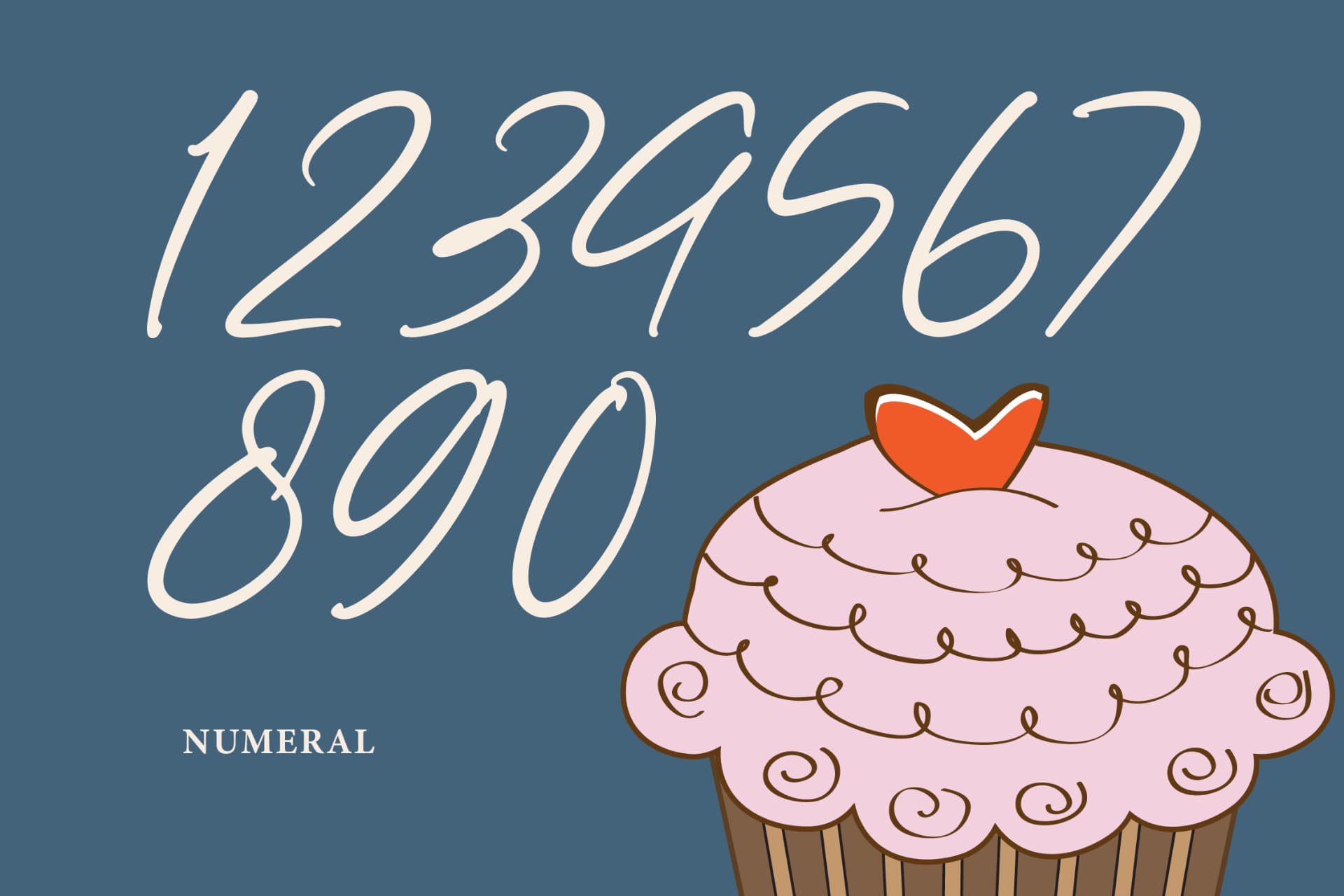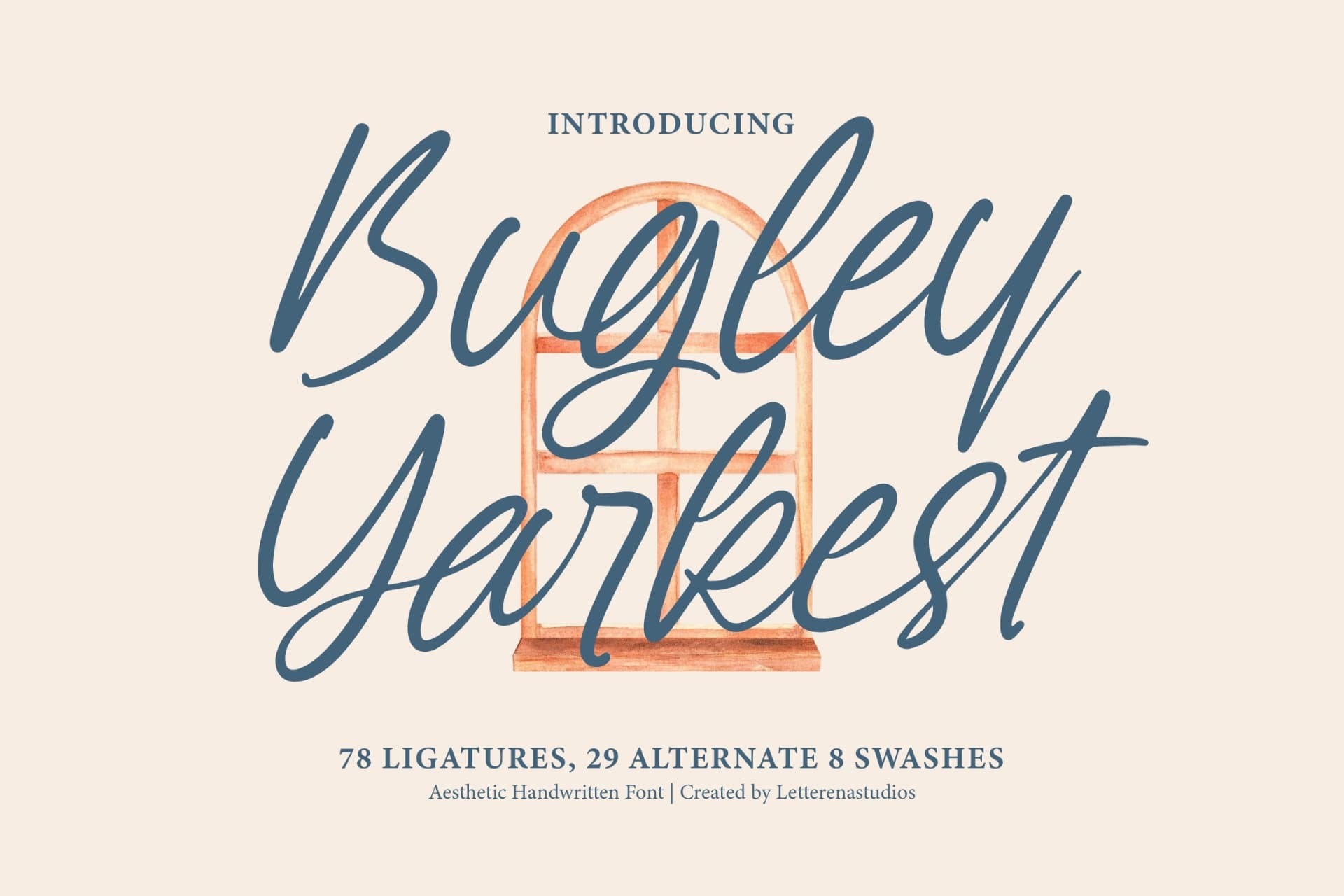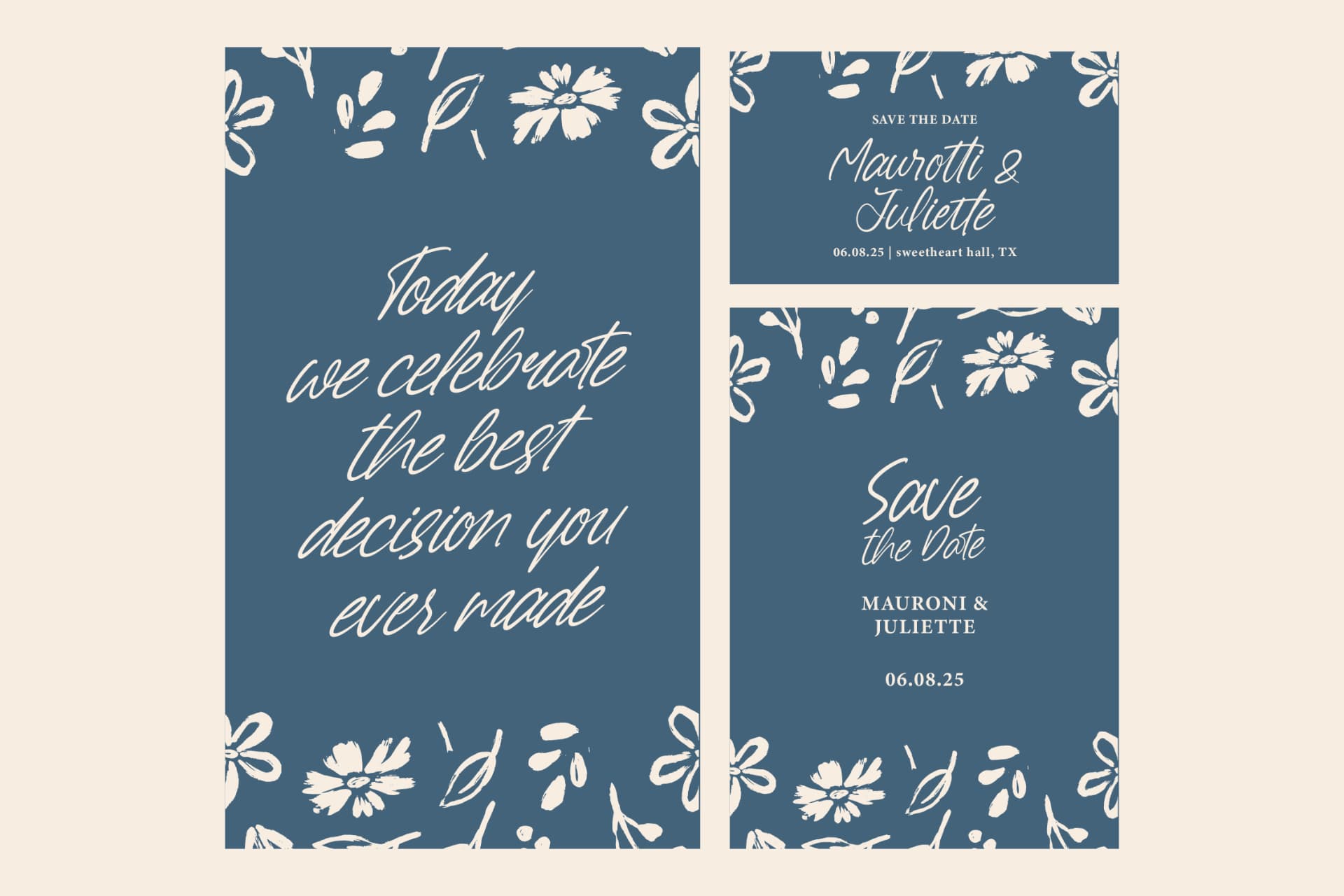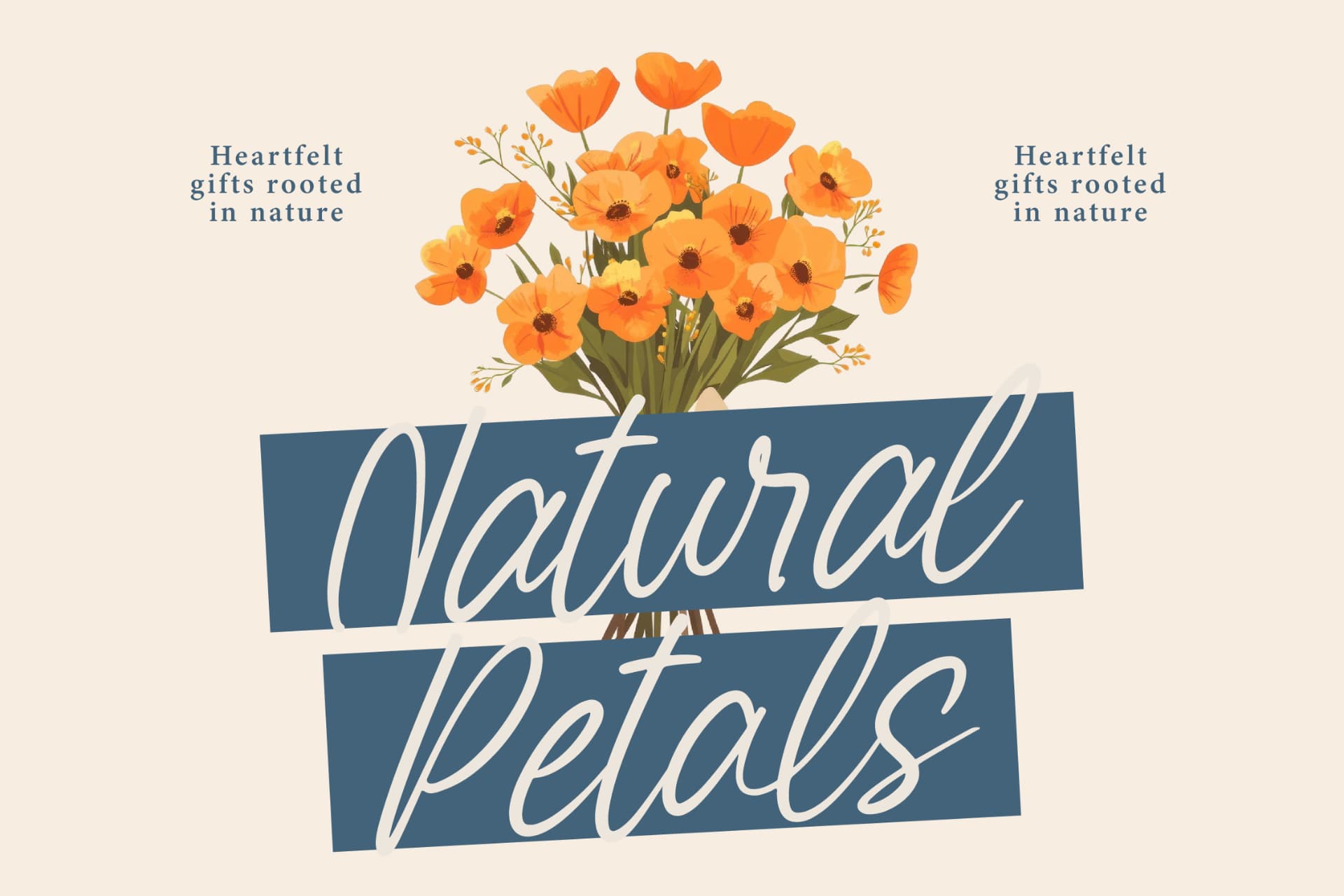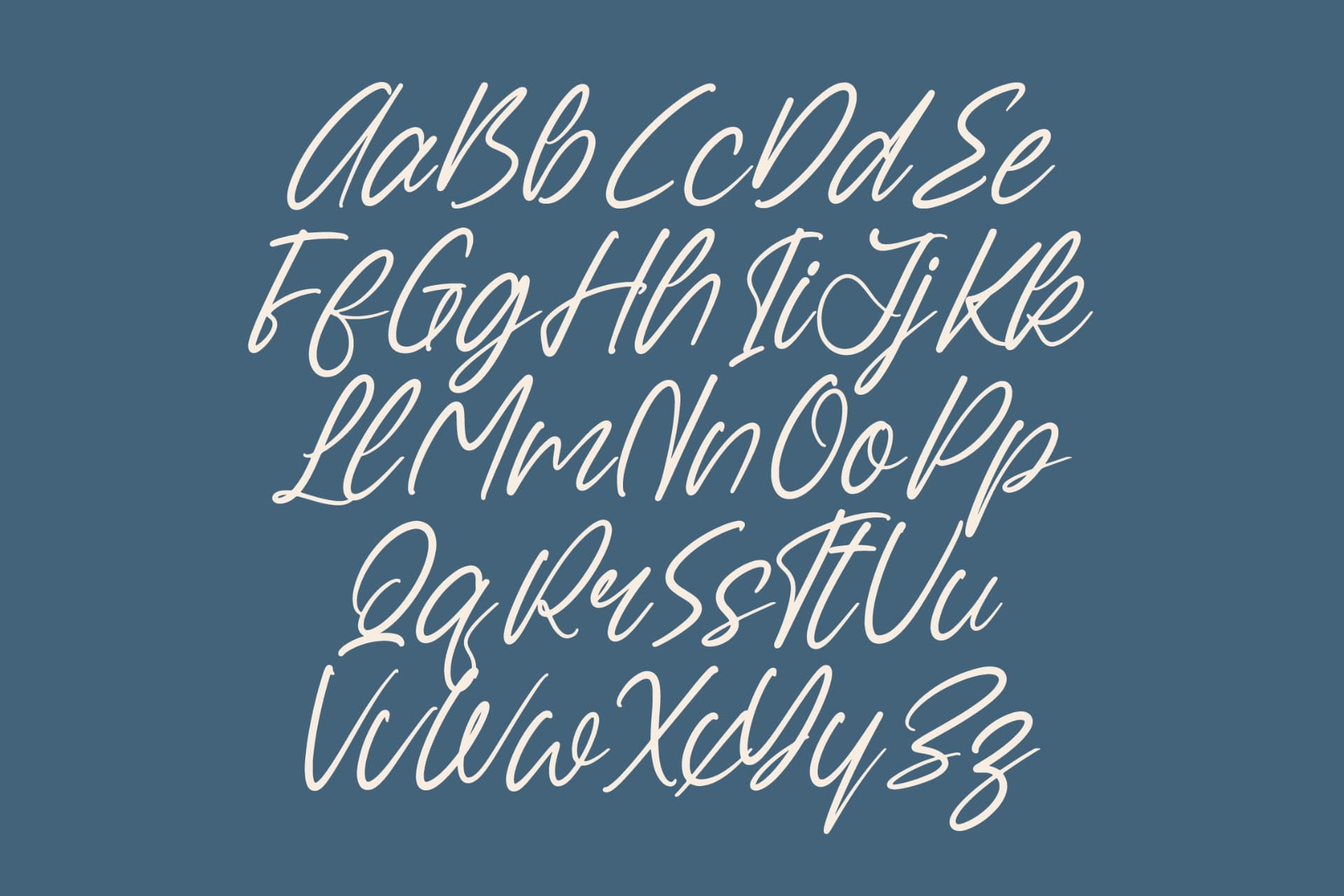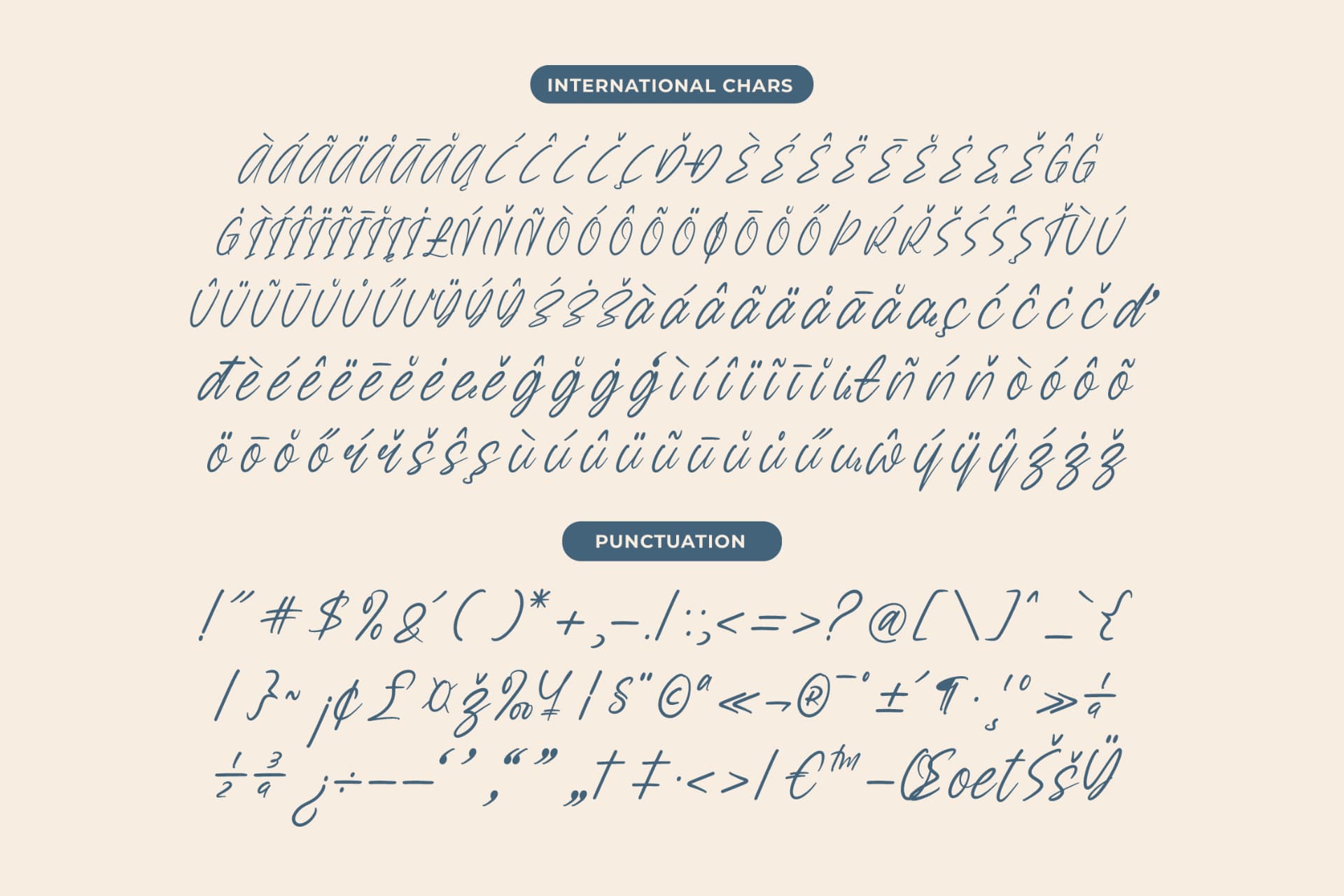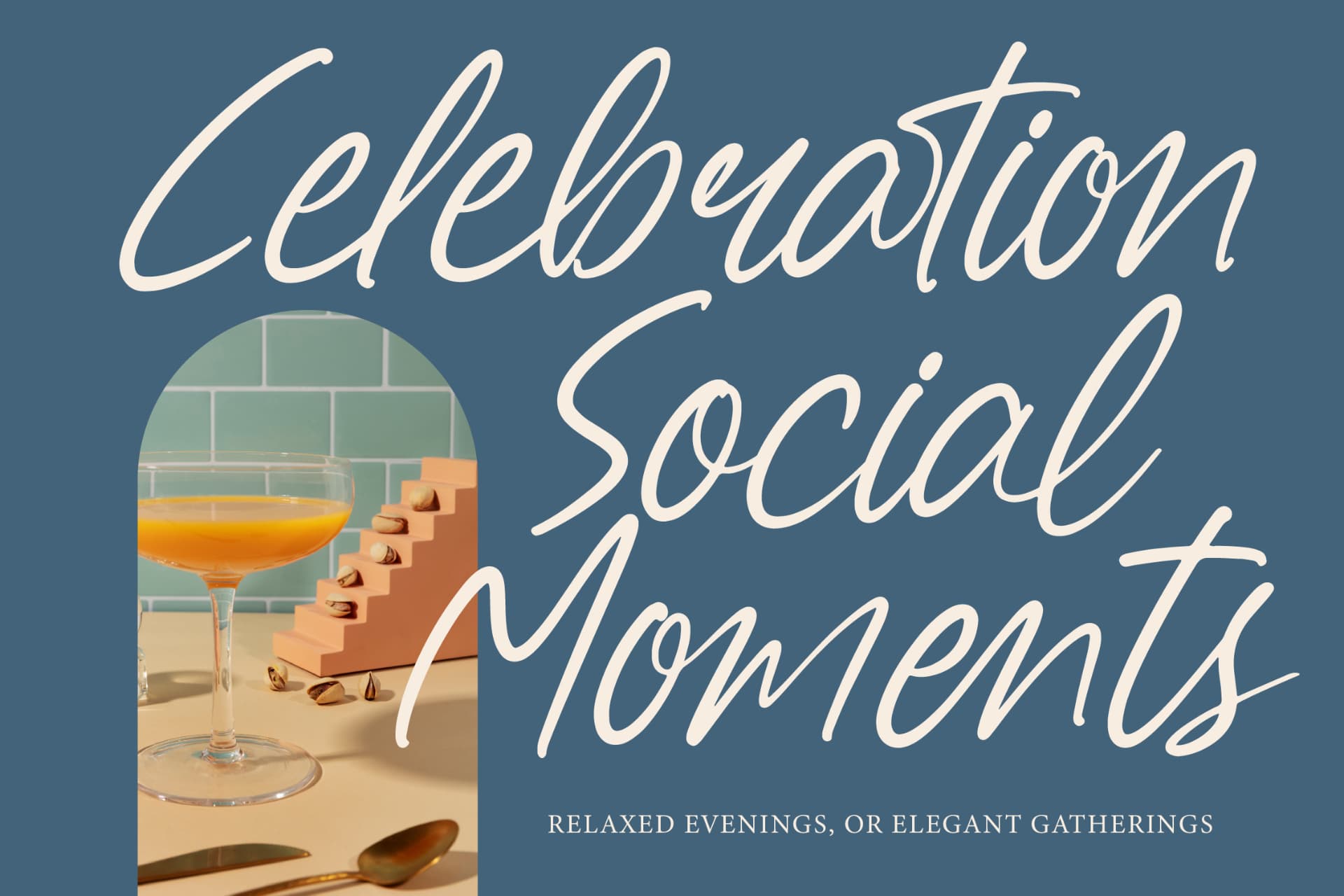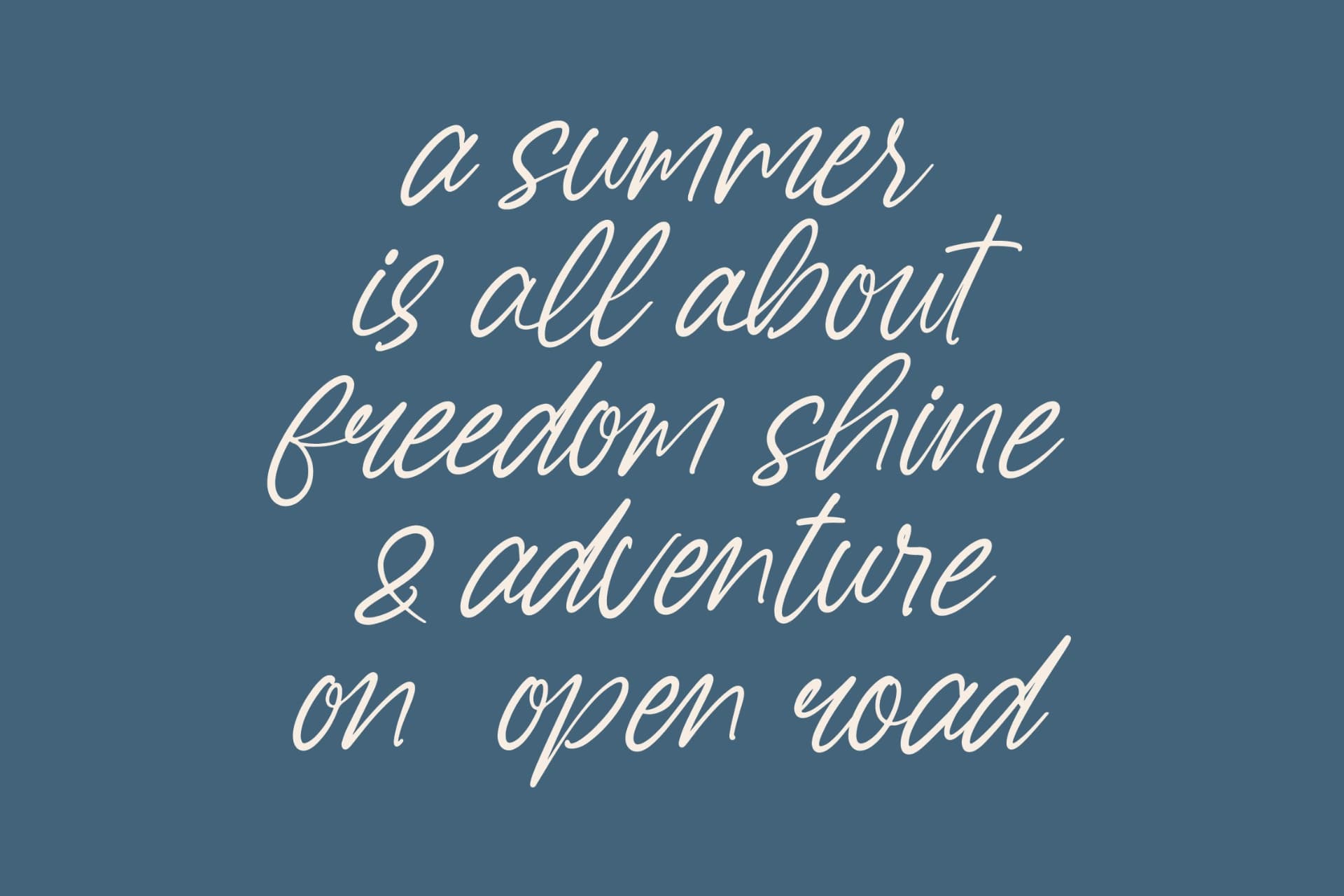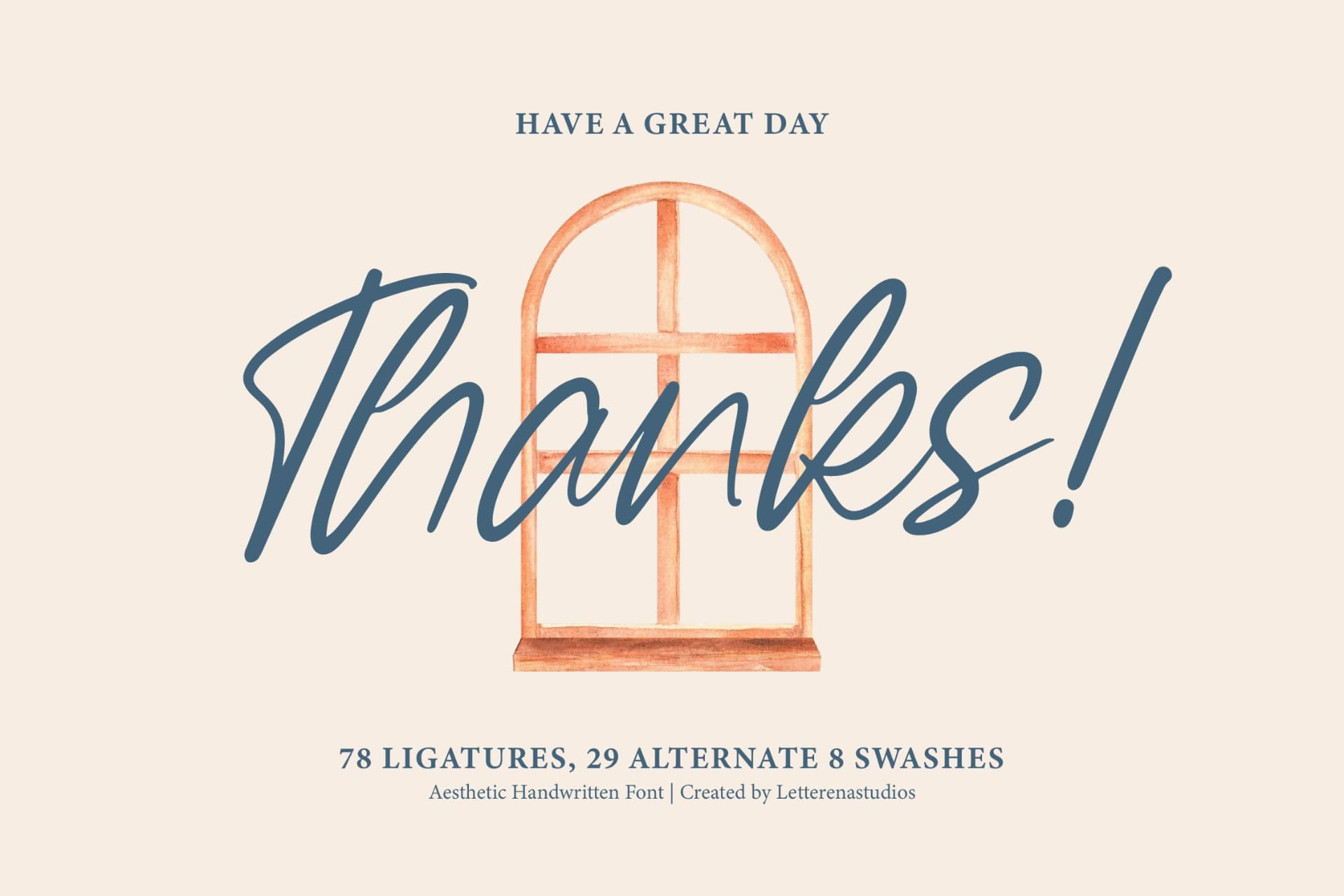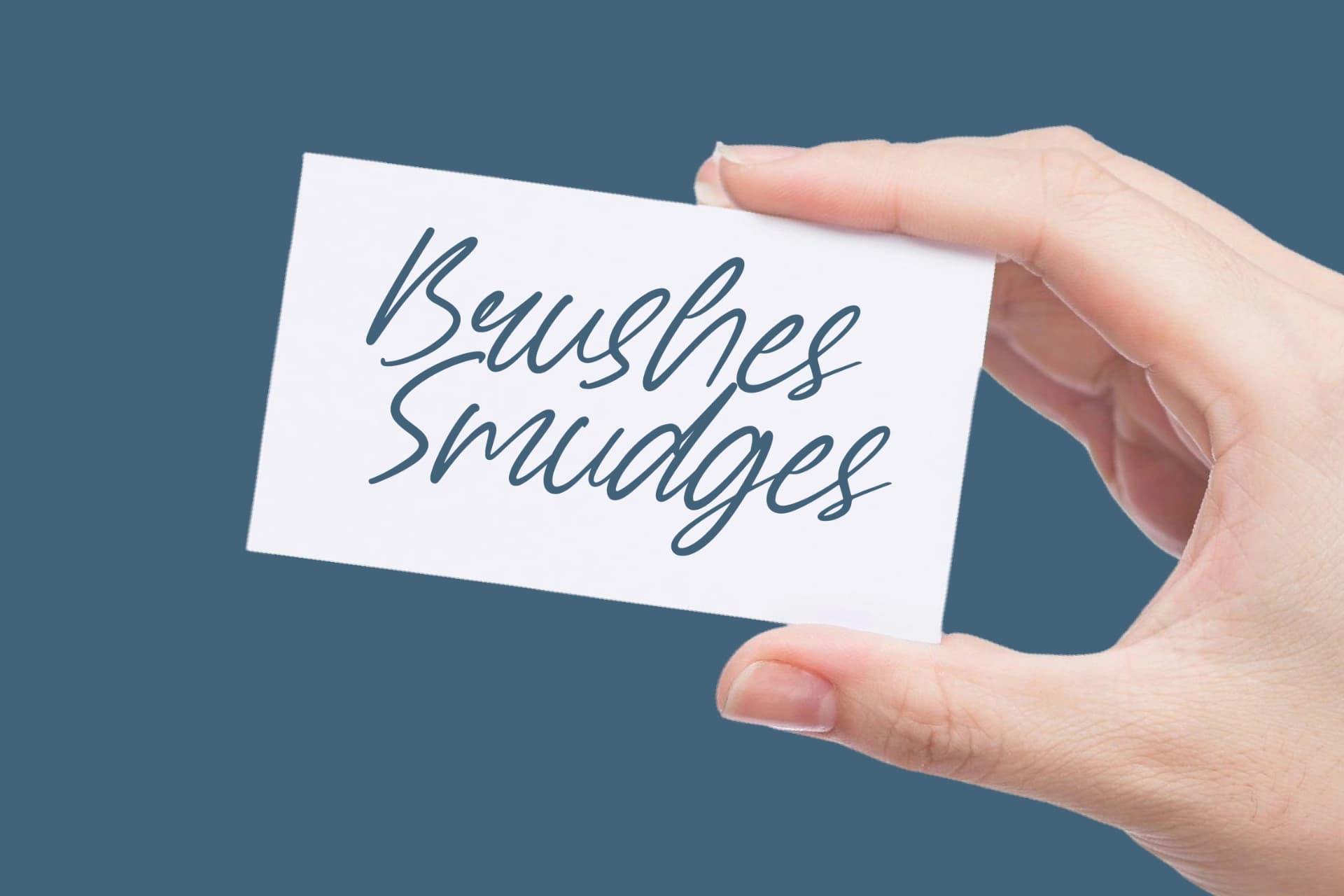
Bugley Yarkest – Aesthetic Handwritten Font
Elevate your designs with timeless charm through Font Bugley Yarkest - Aesthetic Handwritten Font Script, a masterful creation exuding authentic, handcrafted elegance. This exquisite script font captivates with its fluid strokes and natural flow, designed to impart a personal yet sophisticated touch to any project. Boasting an impressive collection of 78 ligatures, 29 alternates, and 8 swashes, it offers unparalleled creative flexibility, allowing for truly unique and expressive typographic compositions.
Unlock unparalleled creative possibilities with the inherent versatility of Font Bugley Yarkest - Aesthetic Handwritten Font Script. Its aesthetic brilliance lies in its ability to combine an informal, friendly feel with an underlying sense of polished refinement. Designers will appreciate the seamless integration of its detailed character set, perfect for crafting compelling visuals that demand attention and evoke warmth, personality, and bespoke quality in every letterform.
Go global with your brand's voice and ensure your message resonates across diverse cultures. With its extensive multilingual support, Font Bugley Yarkest - Aesthetic Handwritten Font Script adapts seamlessly across global markets, making it incredibly versatile for international projects. This comprehensive language coverage ensures that your designs maintain their intended beauty and readability, fostering strong connections with audiences worldwide.
Perfectly suited for an array of discerning applications, Font Bugley Yarkest - Aesthetic Handwritten Font Script is the ideal choice for projects requiring a touch of refined artistry. It shines brightest in areas such as luxury branding, elegant packaging, bespoke wedding invitations, engaging editorial design, captivating social media graphics, and sophisticated personalized stationery. Its presence guarantees a memorable, aesthetically pleasing impression that truly stands out.